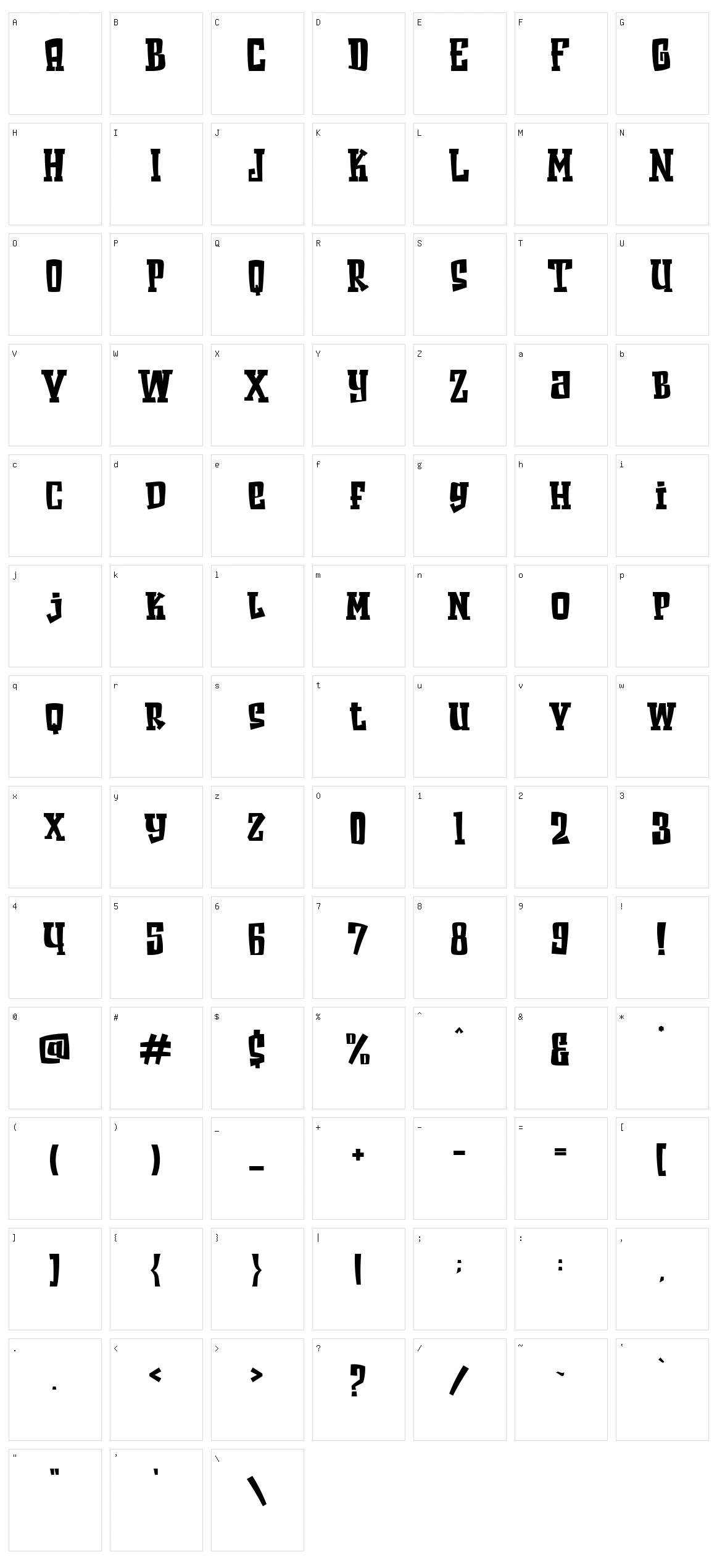
The free font Restoe Iboe is carefully designed by Green Adventure Studio, showcasing a thoughtful balance of creativity and usability and falls under the Cartoon font style. When you download the ZIP file, it contains only 23.98 KB of font files, making it lightweight and quick to download. Please review the license details below to understand permitted usage and distribution rights. If license information is not available, we recommend using this font for personal projects only or contacting the author directly for commercial usage permissions.